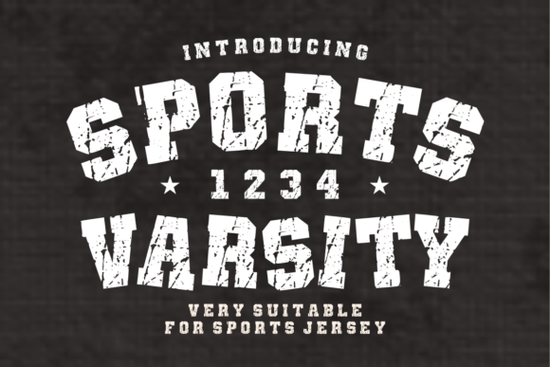
Designers, crafters, and small business owners looking for a strong visual identity for sports-related projects will find the Sports Varsity Font to be a valuable addition to their toolkit. This bold, distressed font combines the strength of a traditional slab serif with a rugged, weathered texture that gives it a distinctive, battle-worn look. Whether you're working on team logos, fan gear, or vintage-style athletic apparel, this font brings a sense of authority and energy that stands out.
The Sports Varsity Font is particularly well-suited for designs that require a collegiate or athletic vibe. Its heavy weight and grunge elements make it ideal for creating eye-catching sports jerseys, banners, and promotional materials. The font’s design allows it to work well in both digital and print formats, making it a versatile choice for a variety of creative projects.
What Makes Sports Varsity Unique?
One of the standout features of the Sports Varsity Font is its combination of boldness and texture. Unlike many standard fonts, it adds a layer of depth through its distressed appearance, which can give your designs a more authentic, handcrafted feel. This makes it perfect for projects that aim to evoke a sense of history or tradition.
Another key aspect is its readability. Despite its heavy and textured style, the font remains clear and legible, even at smaller sizes. This balance between style and functionality is essential for any display font, especially when used in sports branding where clarity is crucial.
How to Use Sports Varsity in Your Projects
If you’re working on a sports-themed design, consider using Sports Varsity for headings, titles, or logos. It works well with other fonts that have a more modern or clean look, allowing you to create contrast and visual interest. For example, pairing it with a sans-serif font can help highlight key information while maintaining a cohesive aesthetic.
For print-on-demand sellers, this font can add a unique touch to t-shirts, caps, and other merchandise. Its rugged look can appeal to customers who want something that feels authentic and high-quality. You can also use it in social media graphics, posters, or website headers to create a consistent brand image across different platforms.
Why Choose Sports Varsity for Your Design Work?
For creatives who want to add a strong, athletic presence to their work, Sports Varsity offers a reliable and stylish solution. It’s not just about looking good it’s about conveying the right message. Whether you're designing for a local sports team, a fitness brand, or a custom apparel business, this font helps you communicate energy, strength, and a sense of community.
Overall, the Sports Varsity Font is a powerful tool for anyone involved in sports-related design. Its combination of boldness, texture, and readability makes it an excellent choice for a wide range of projects. Whether you're a designer, a crafter, or a small business owner, this font can help you create designs that stand out and resonate with your audience.
Before finalizing your project, take some time to experiment with different layouts and color schemes to see how the font interacts with other elements. Testing it in real-world scenarios can help you get the most out of its unique characteristics.
- Try using Sports Varsity for headlines and logos in sports-themed designs.
- Pair it with simpler fonts to balance style and readability.
- Test the font in different sizes and formats to ensure it works well for your project.